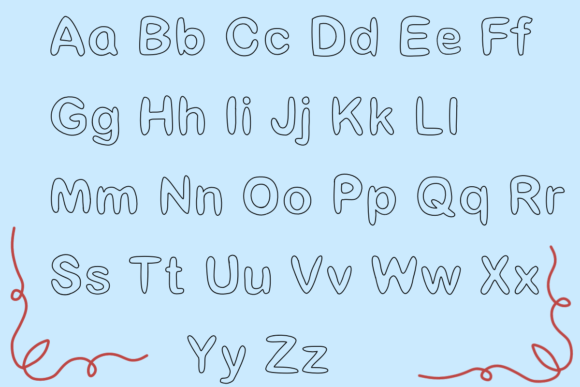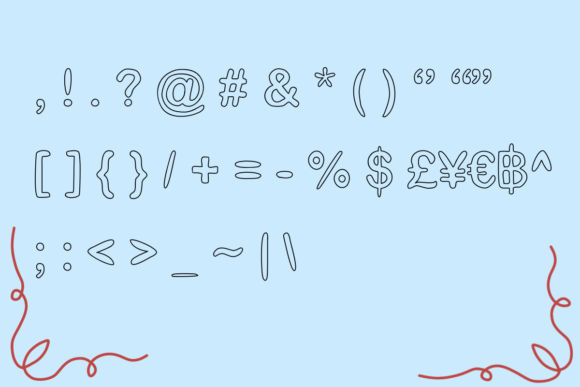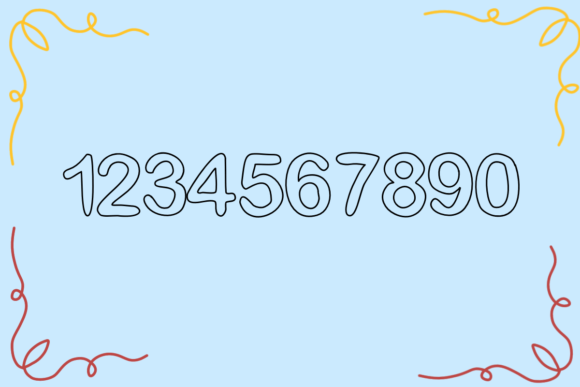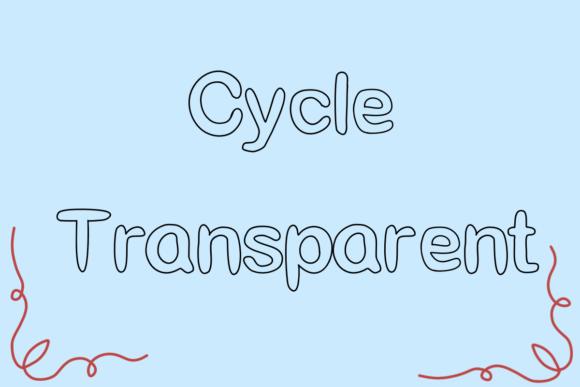
Cycle Transparent Font: Elevate Your Designs with a Simple yet Stunning Display Font
In the world of design, fonts play a crucial role in conveying messages and setting the tone for a project. When it comes to creating visually appealing and simple designs, the right font can make all the difference. This is where Cycle Transparent Font comes in – a display font with a minimalist style that’s perfect for a variety of projects. In this article, we’ll dive into the features and benefits of Cycle Transparent Font, and explore how it can elevate your designs.
What is Cycle Transparent Font?
Cycle Transparent Font is a display font designed with simplicity in mind. Its clean and minimalist style makes it an excellent choice for designers and crafters looking for a font that’s easy to read and visually appealing. The font’s transparent background allows it to blend seamlessly with any design, making it perfect for custom designs, DIY crafts, and more.
Key Features of Cycle Transparent Font
- Simple and Minimalist Style: Cycle Transparent Font boasts a clean and straightforward design that’s perfect for simple projects.
- Display Font: This font is specifically designed as a display font, making it ideal for headlines, titles, and other prominent text elements.
- Transparent Background: The font’s transparent background allows it to blend seamlessly with any design, making it easy to use on various backgrounds.
- Easy to Read: Despite its simple style, Cycle Transparent Font is easy to read, making it perfect for designs that require clear communication.
Benefits of Using Cycle Transparent Font
So, why choose Cycle Transparent Font for your next project? Here are some benefits of using this stunning display font:
- Versatility: Cycle Transparent Font is suitable for a wide range of projects, from custom designs and DIY crafts to digital and print materials.
- Easy to Use: The font’s simple style and transparent background make it easy to use, even for designers and crafters with limited experience.
- High-Quality Design: Cycle Transparent Font is designed with high-quality in mind, ensuring that your designs look professional and visually appealing.
- Unique Look: The font’s transparent background and simple style give it a unique look that’s sure to make your designs stand out.
How to Use Cycle Transparent Font in Your Designs
Using Cycle Transparent Font in your designs is easy. Here are some tips to get you started:
- Pair it with Bold Colors: Cycle Transparent Font looks great when paired with bold colors. Try using it with bright and vibrant colors to create a stunning contrast.
- Use it for Headlines and Titles: As a display font, Cycle Transparent Font is perfect for headlines and titles. Use it to create eye-catching text elements that grab attention.
- Experiment with Backgrounds: The font’s transparent background allows it to blend seamlessly with any design. Experiment with different backgrounds to find the perfect combination.
Cycle Transparent Font is a stunning display font that’s perfect for designers and crafters looking for a simple yet visually appealing font. Its clean and minimalist style, transparent background, and ease of use make it an excellent choice for a wide range of projects. Whether you’re working on a custom design, DIY craft, or digital material, Cycle Transparent Font is sure to elevate your designs and make them stand out. So, why not give it a try and see the difference it can make?